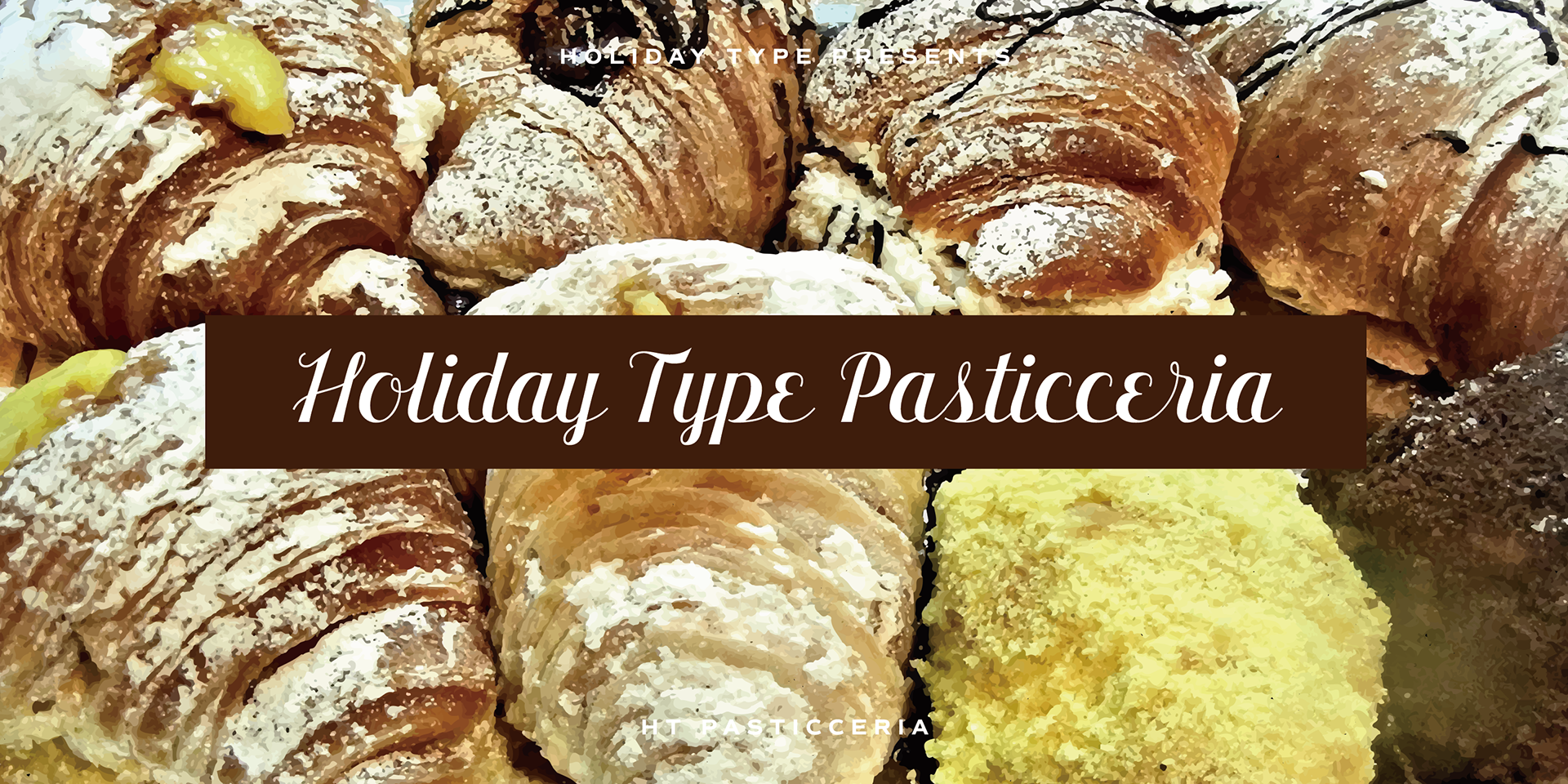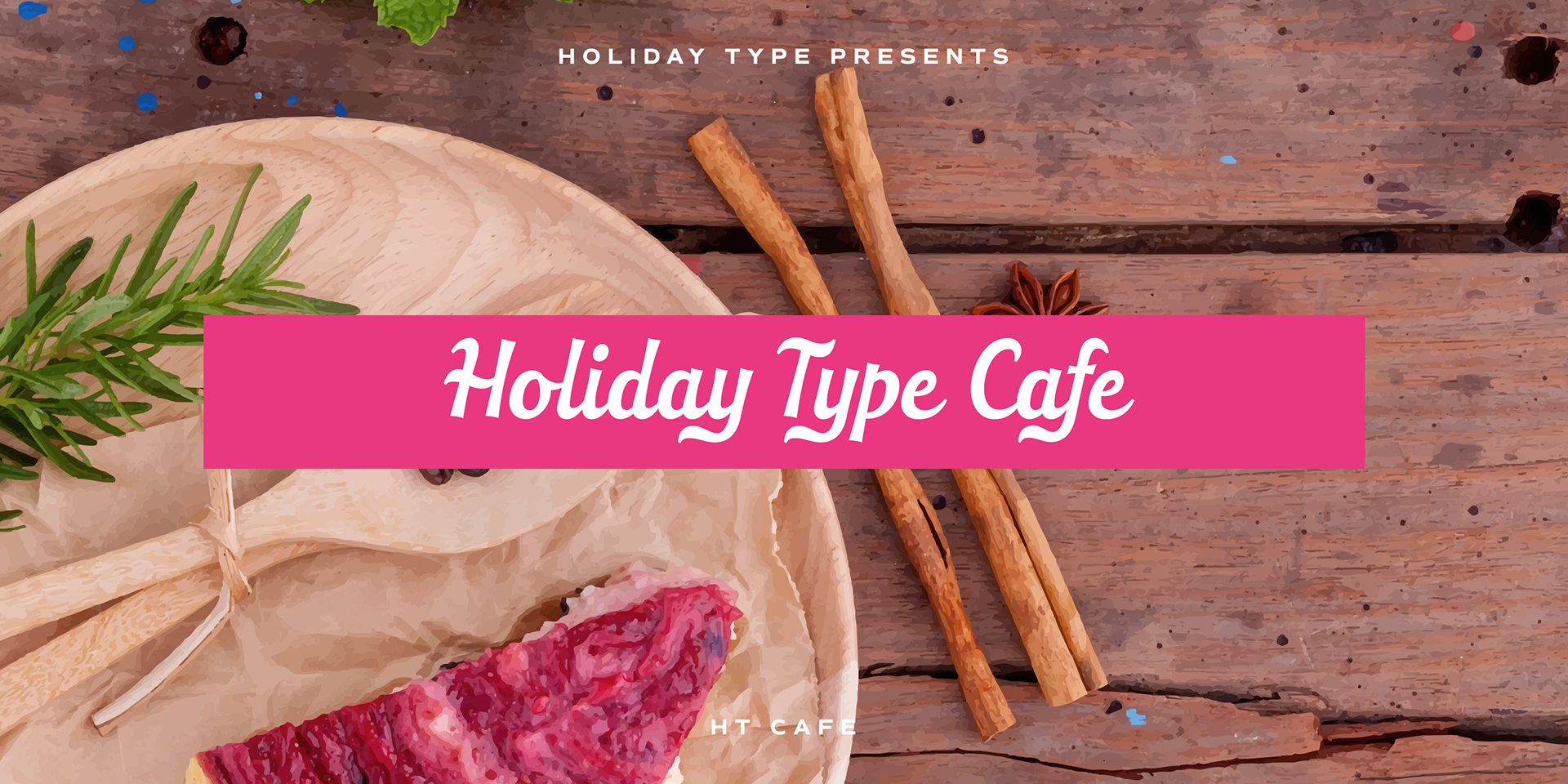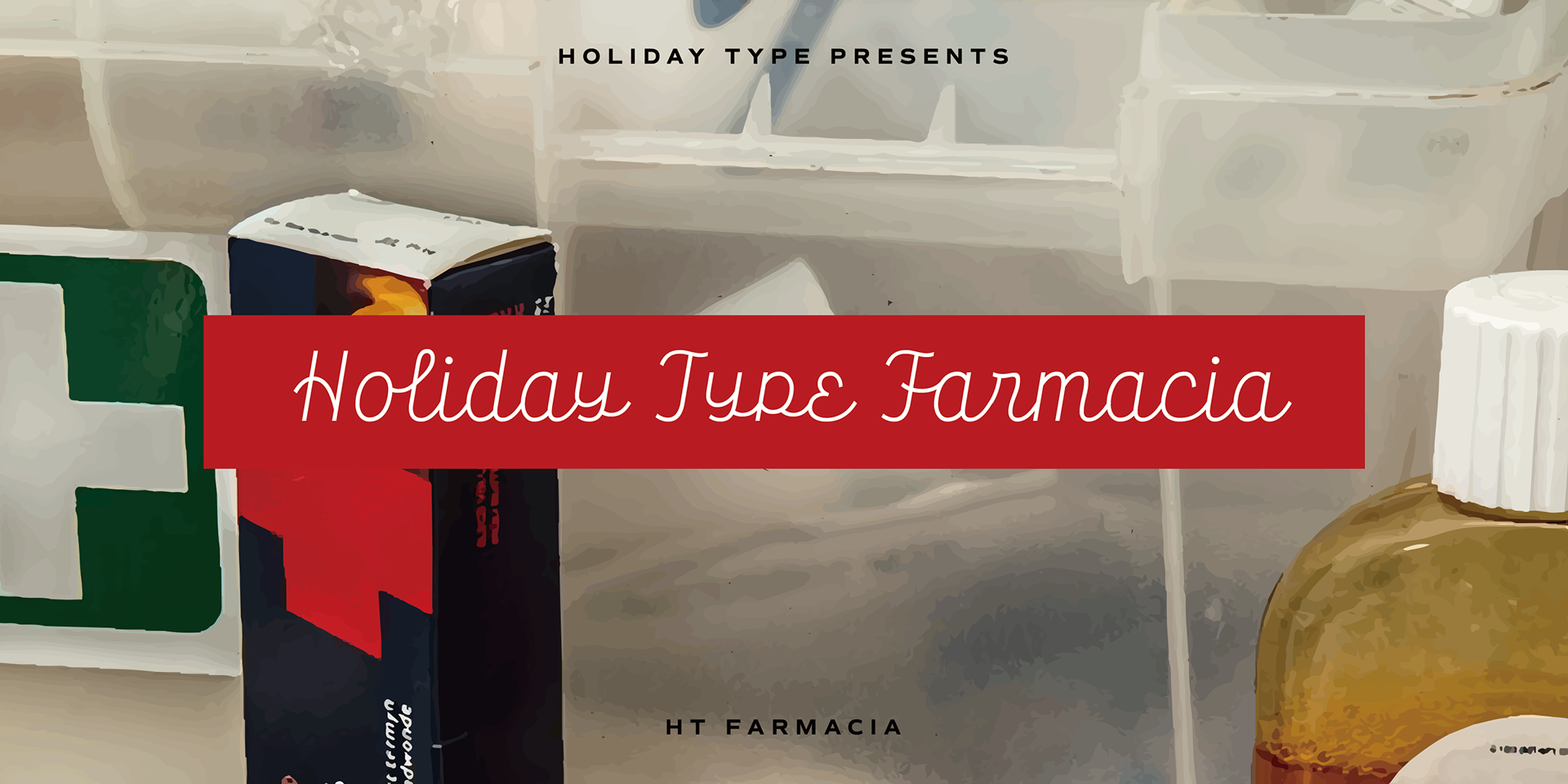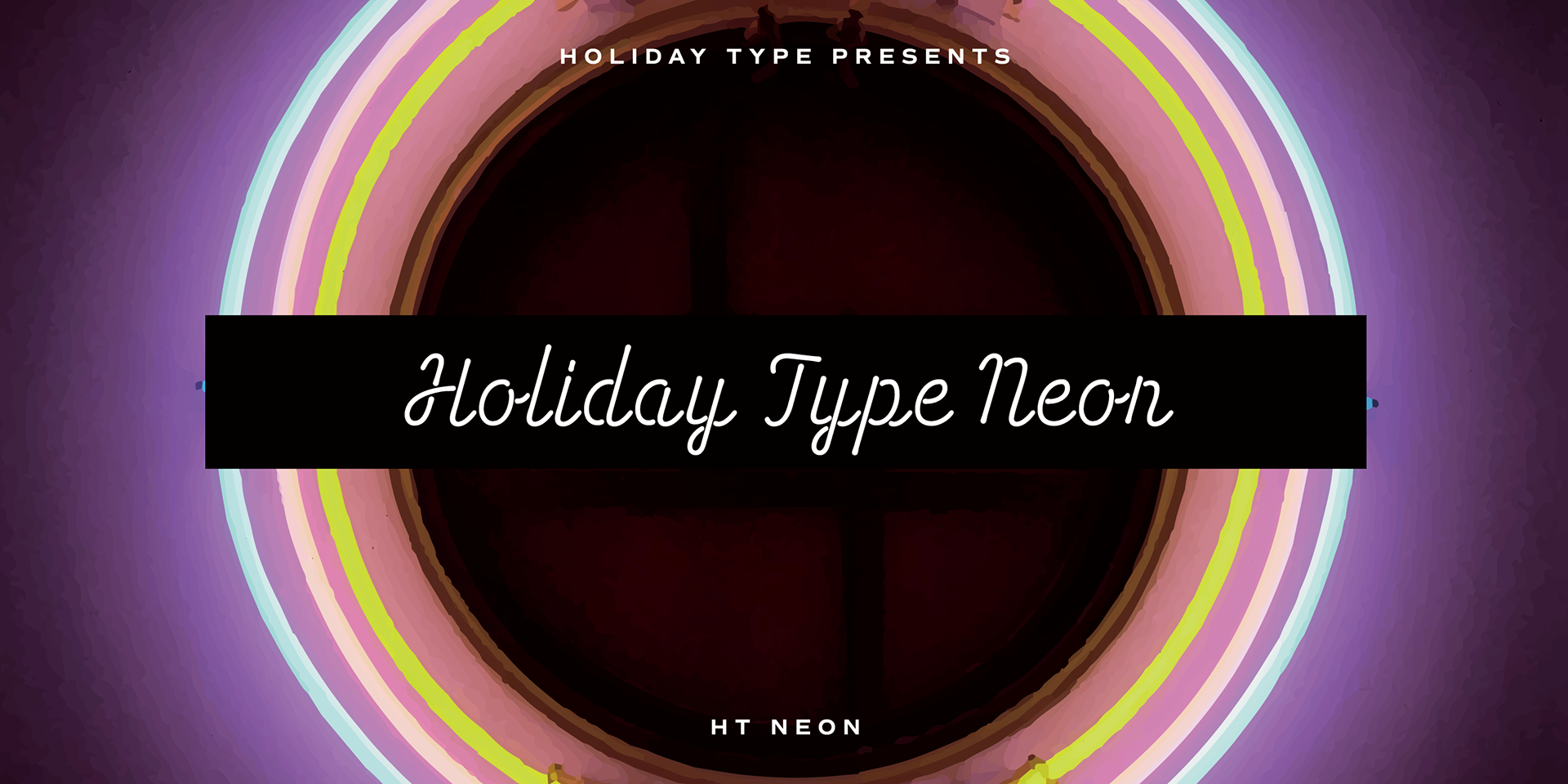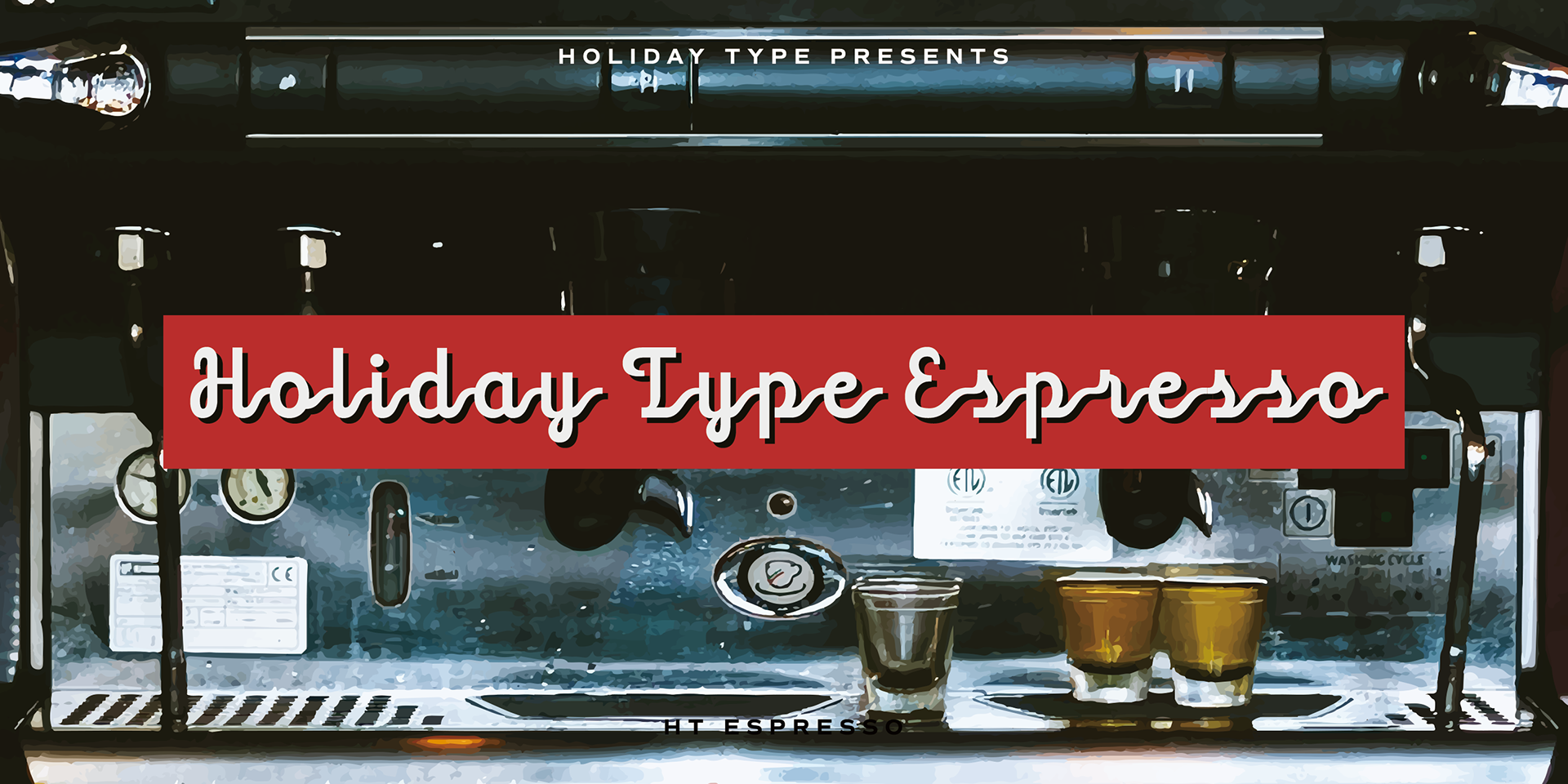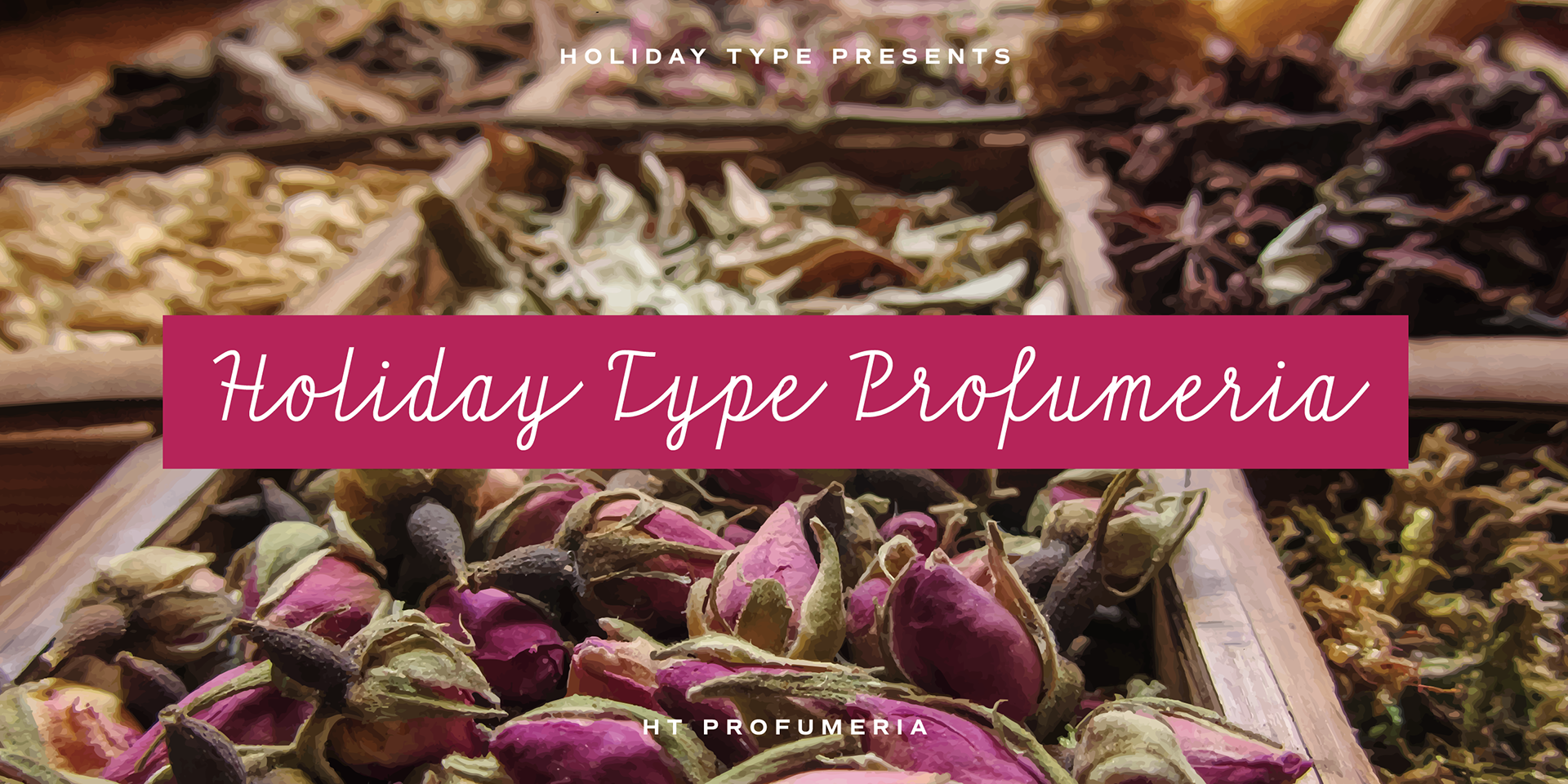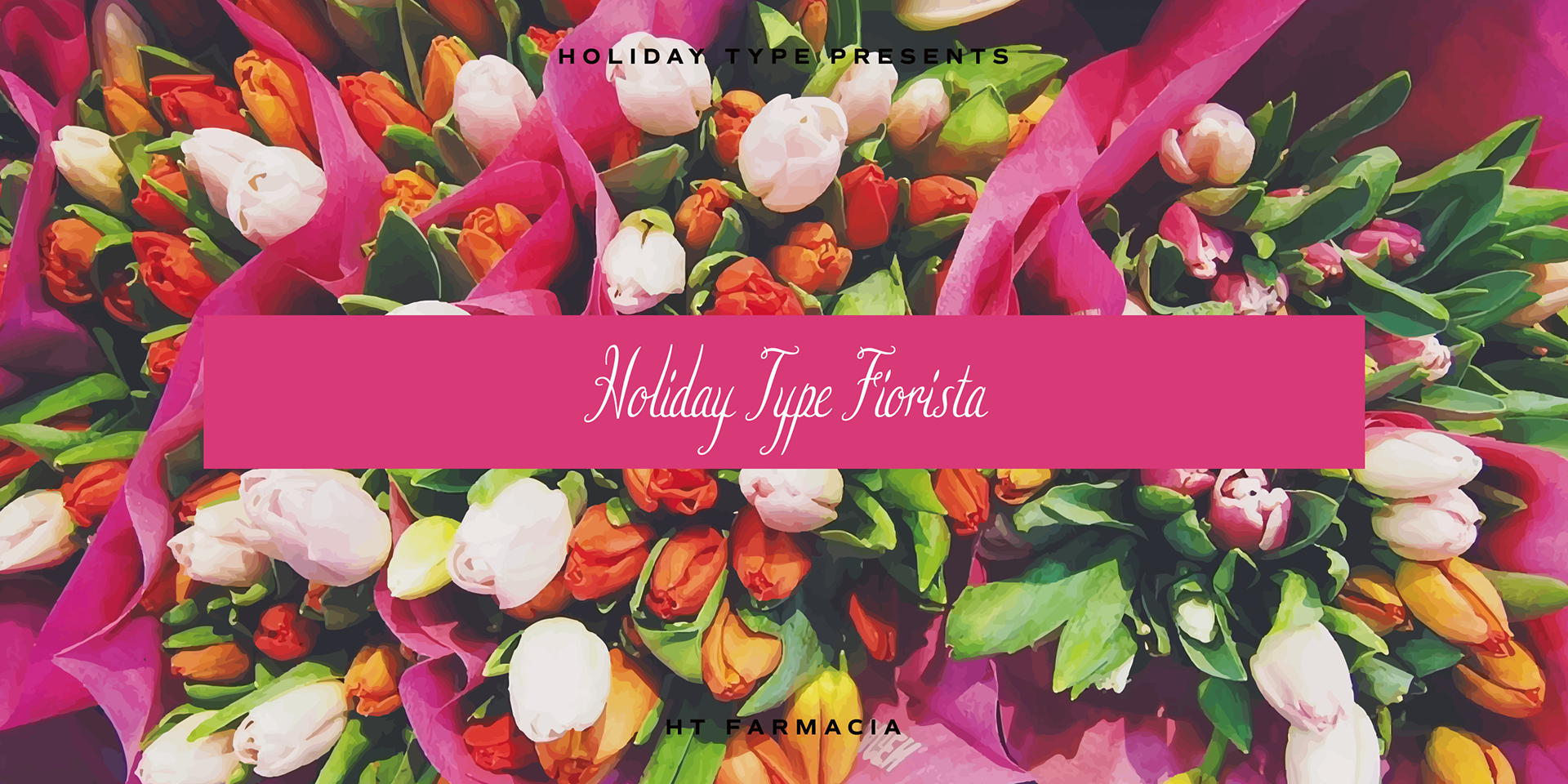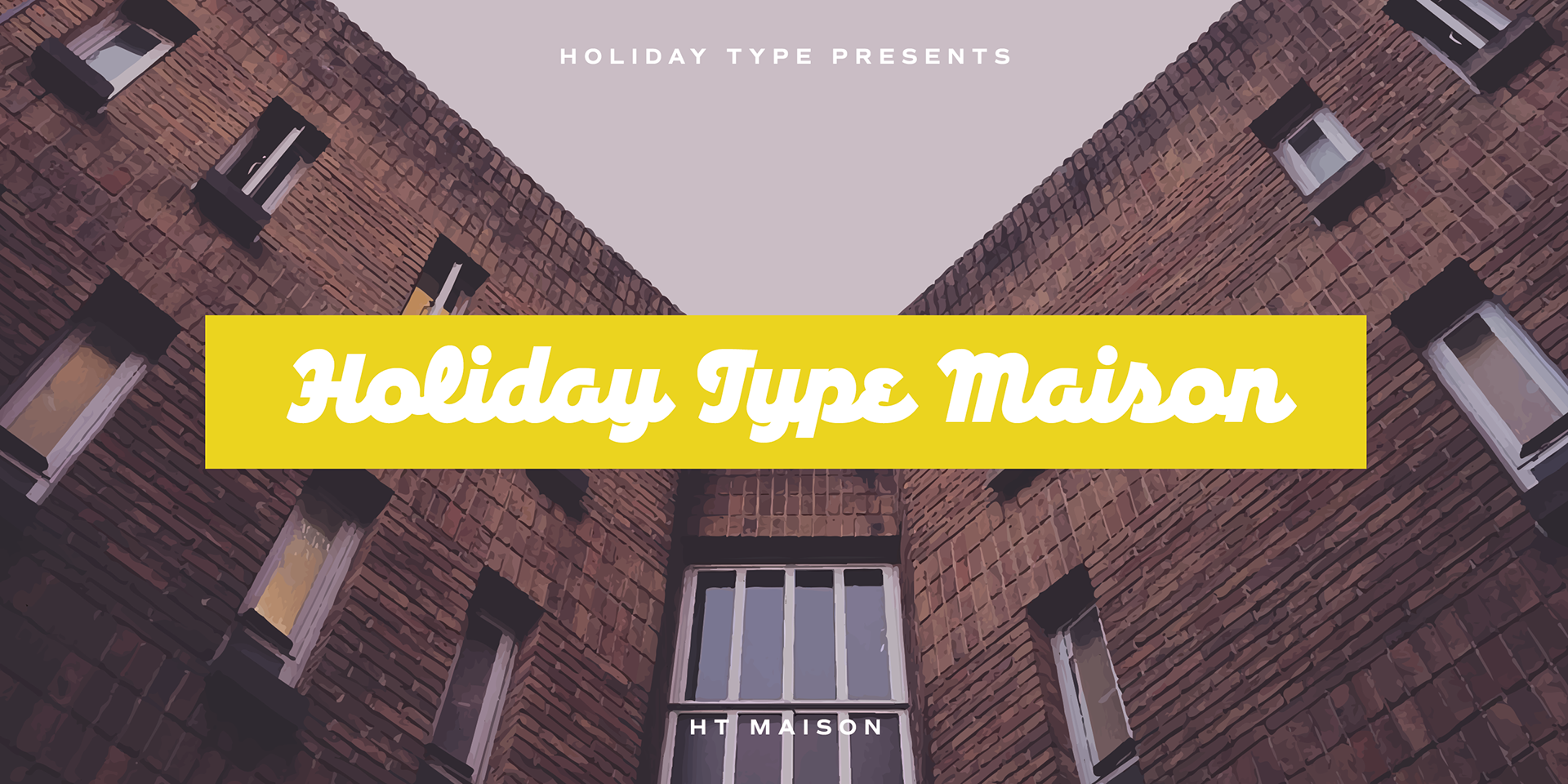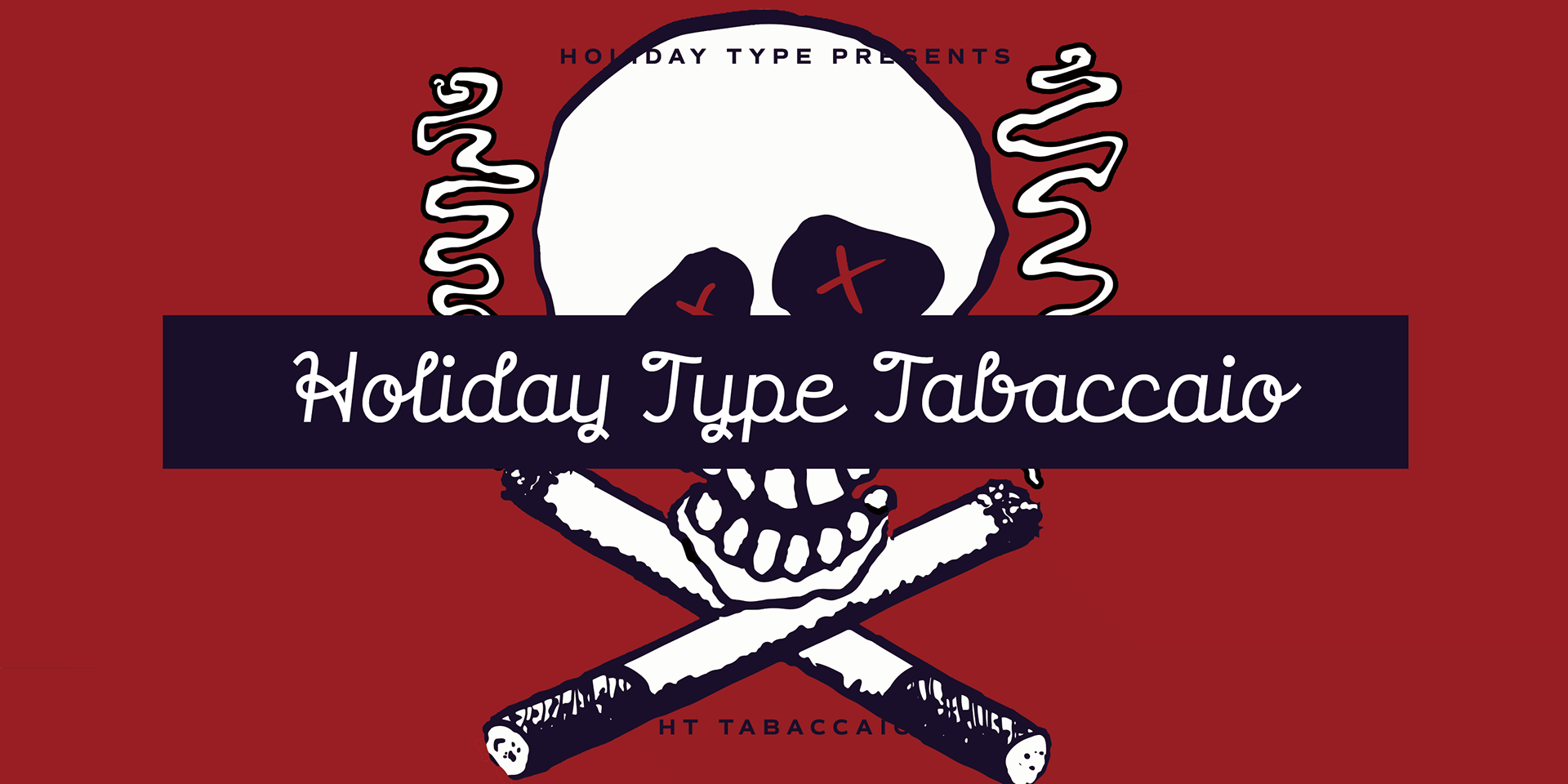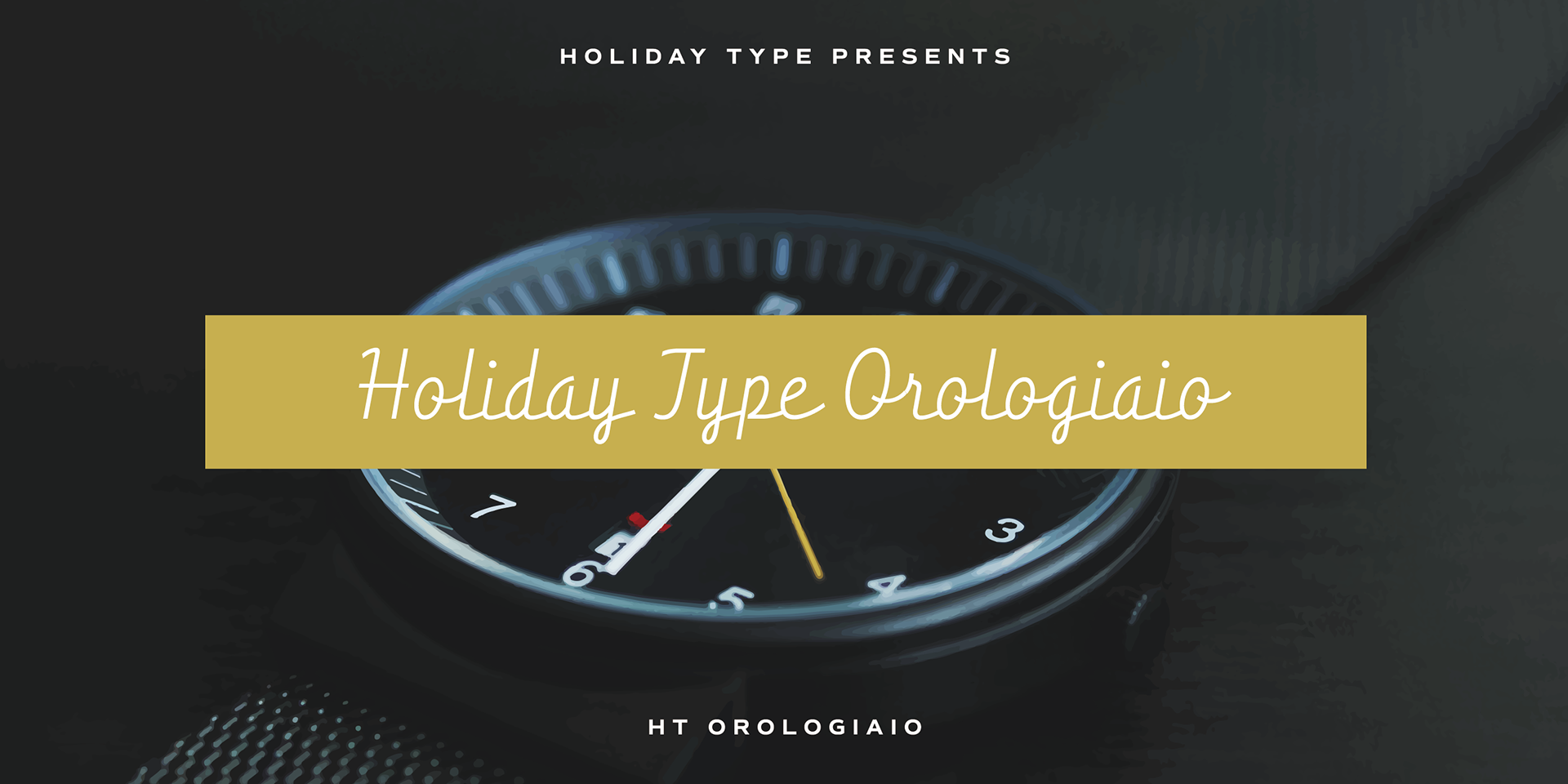
Holiday Type Project
Retro script fonts inspired by shopfront lettering and hand-painted wall advertisements from 1950s Italy.
They capture the nostalgic charm of mid-century Italian streets, blending elegance with a handcrafted feel.